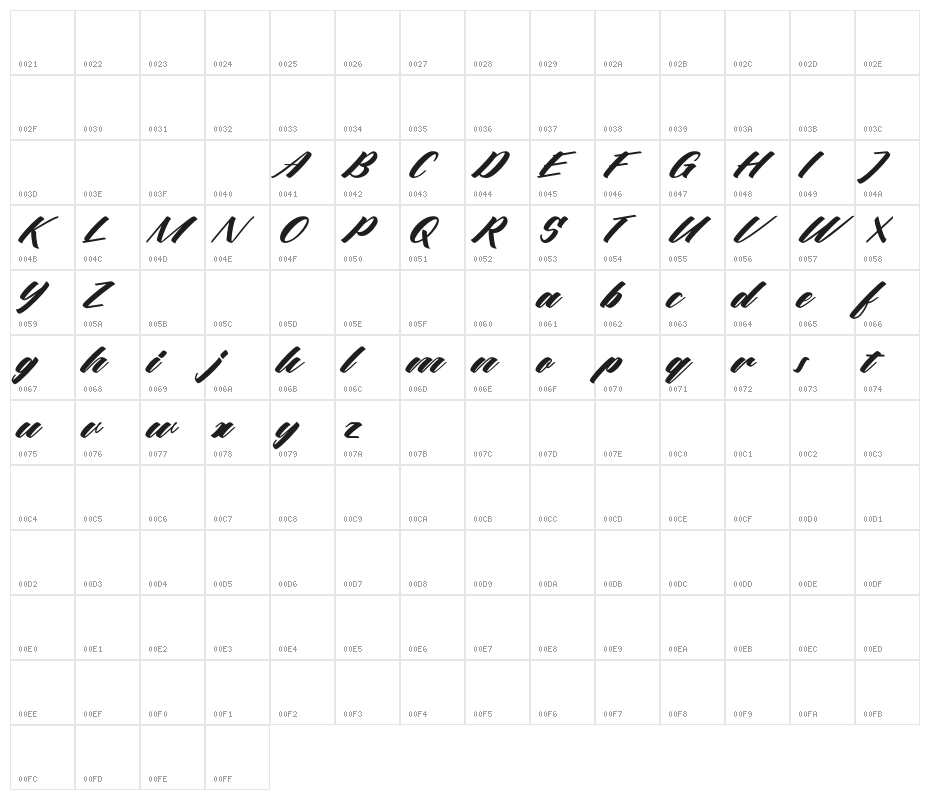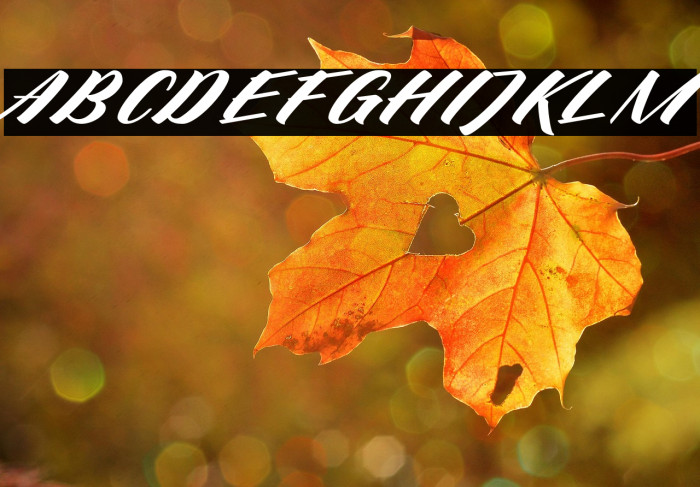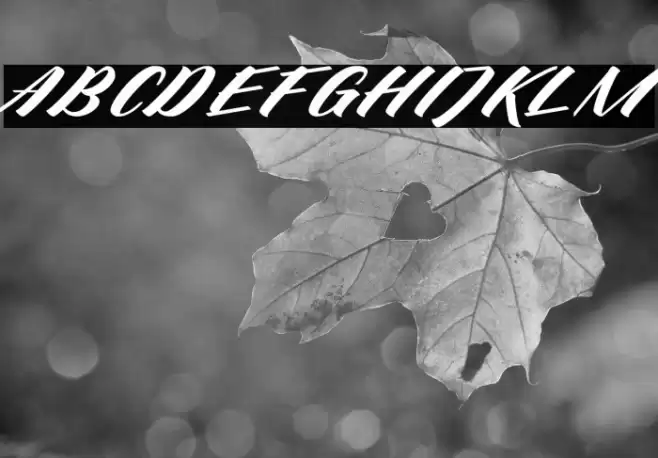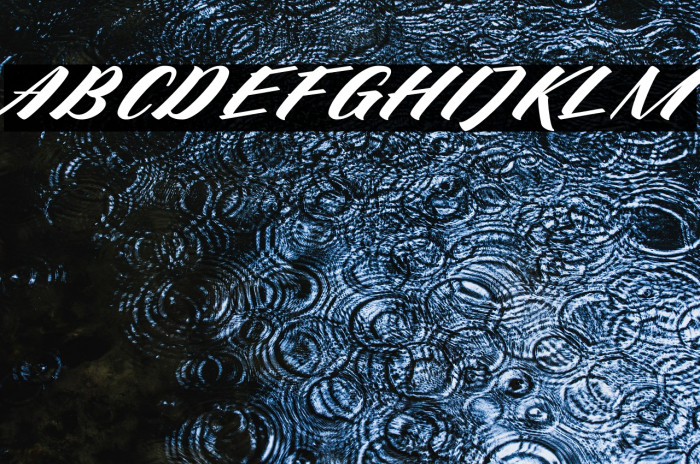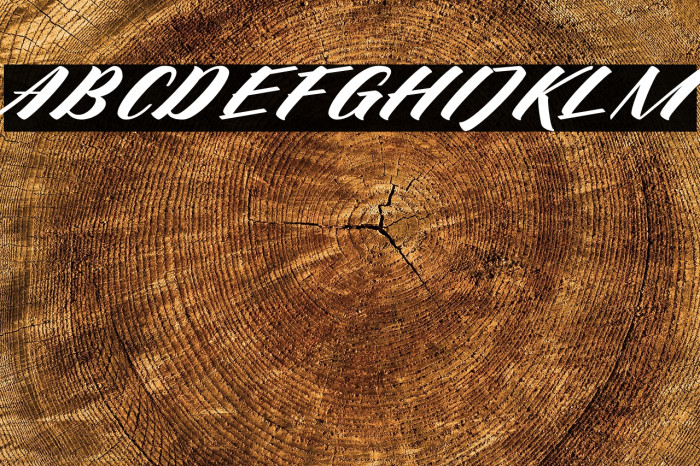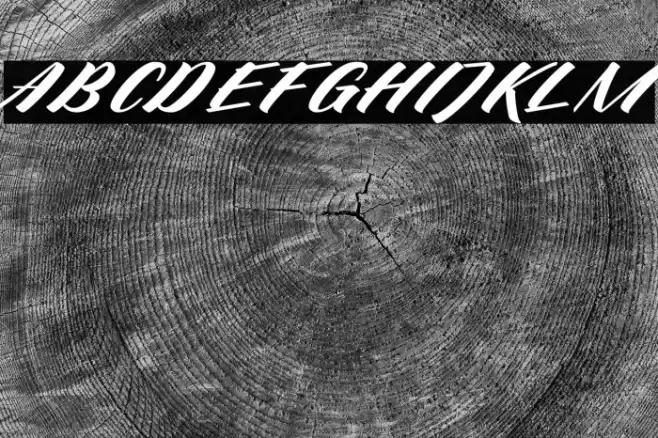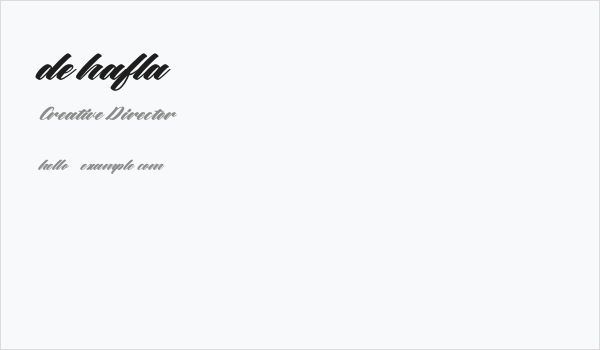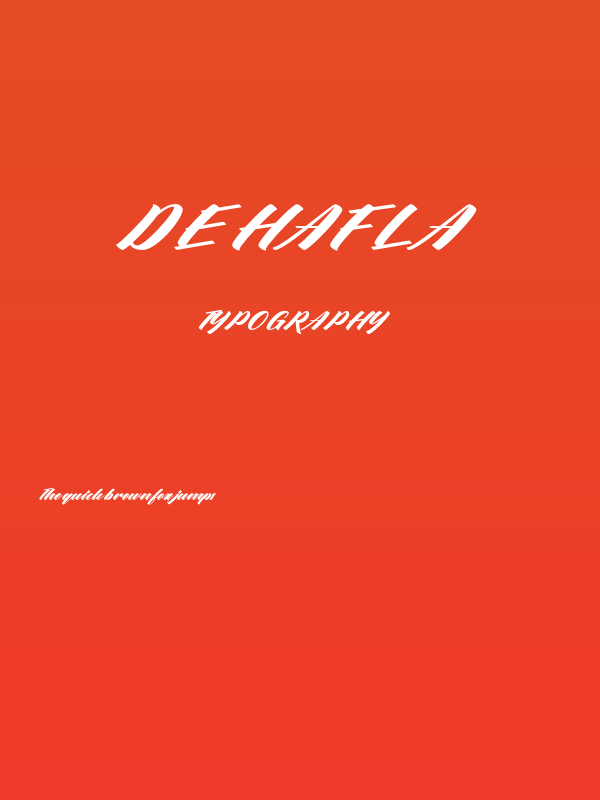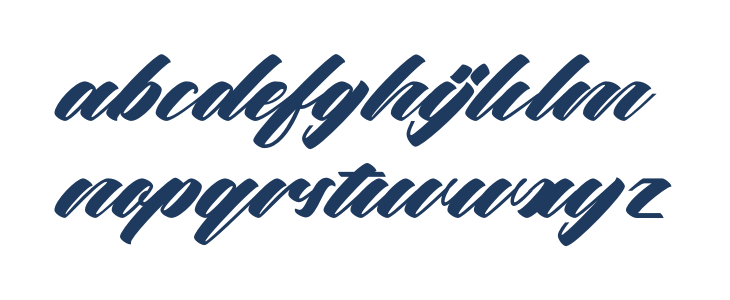
de hafla Font
de hafla Description
This font features a bold, cursive style with a strong emphasis on fluidity and elegance. The characters are interconnected, creating a seamless flow that mimics natural handwriting. The strokes are thick and consistent, giving the font a robust appearance. The uppercase letters are slightly more angular, while the lowercase letters maintain a smooth, rounded form. This font exudes a sense of sophistication and dynamism, making it suitable for projects that require a touch of class and movement.
| Use Case | Logos, Invitations, Artistic Designs |
| Proposed Projects | Ideal for wedding invitations, elegant branding, and artistic posters. |